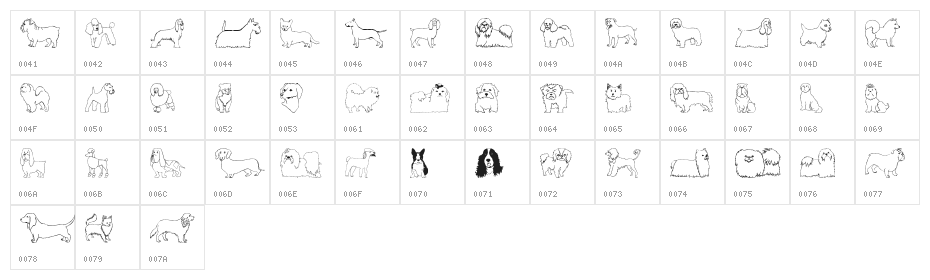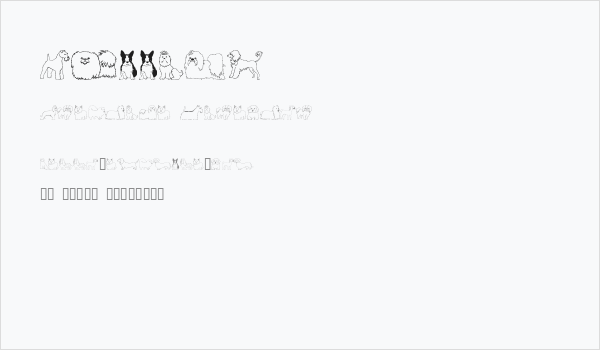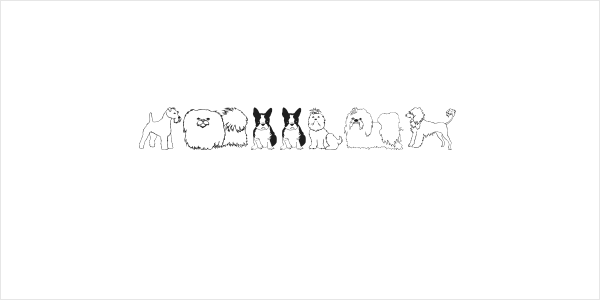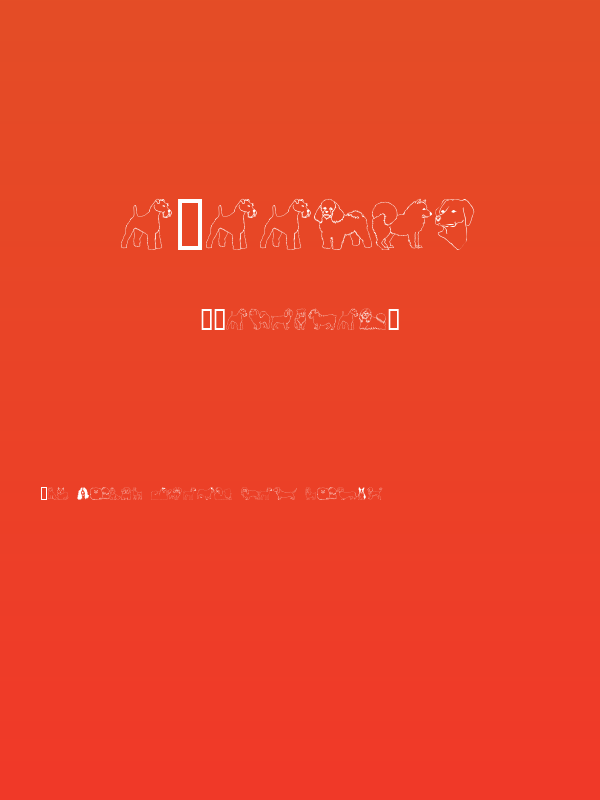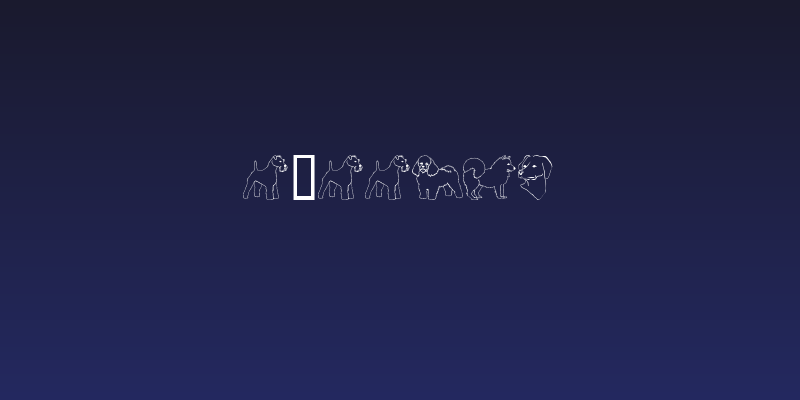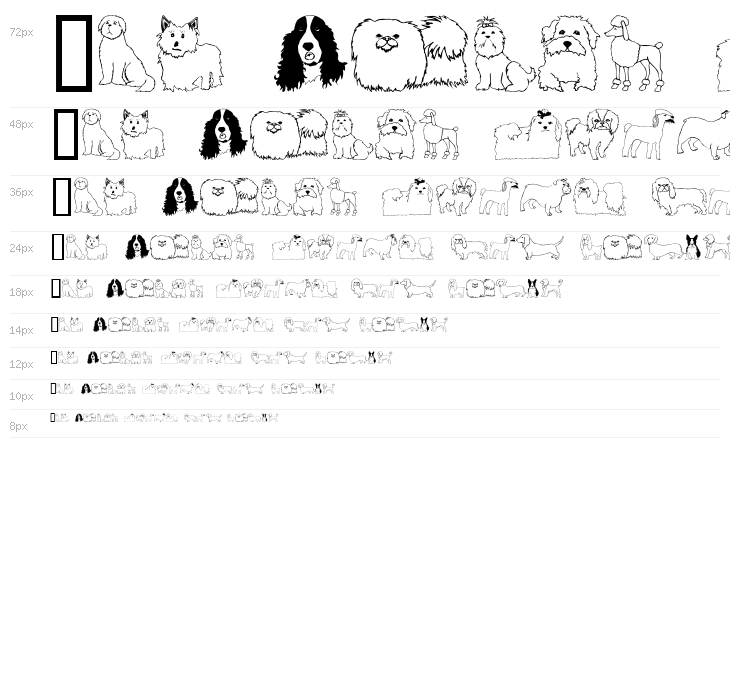
Puppins Font
Puppins Description
This is a decorative display font featuring hand-drawn illustrations of various dog breeds in place of standard alphanumeric characters and symbols. The style is playful and whimsical, with each character represented by a unique dog sketch.
| Overall Style | Playful, Whimsical, Decorative |
| Use Case | Logos, Posters, Invitations, Educational Materials |
| Proposed Projects | ChildrenΓ’β¬β’s books, pet shop branding, animal-themed event posters, playful invitations, educational materials about dogs. |